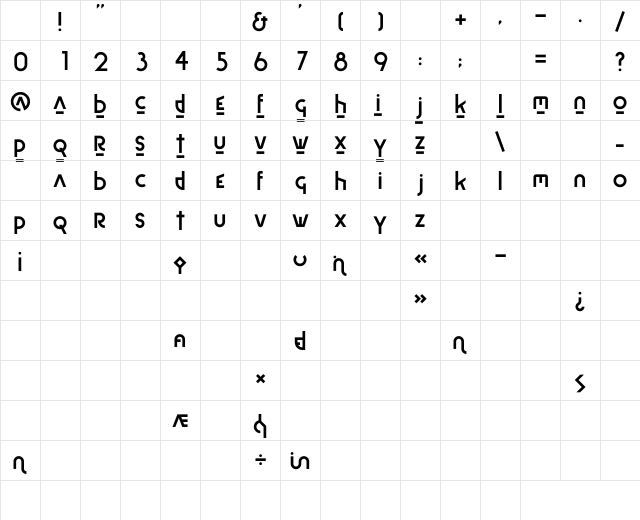
Complete P22 Bayer Fonetik Regular glyph index. Displaying only characters natively supported by P22 Bayer Fonetik Regular font.
P22 Bayer Fonetik is a composed and adaptable typeface that performs quietly and consistently across a wide range of design contexts.